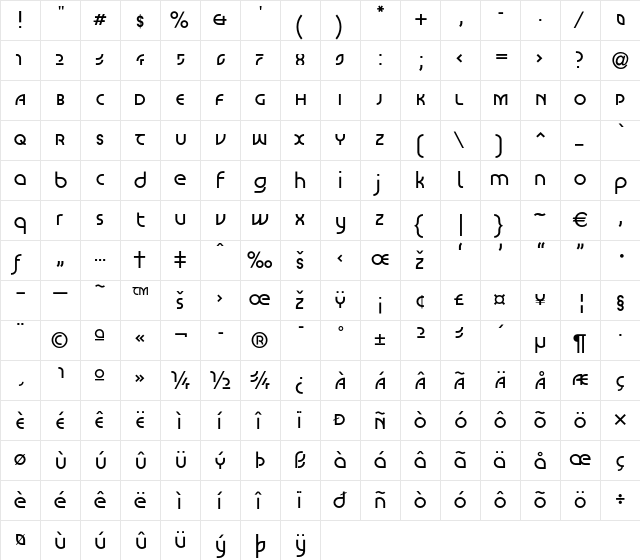
LinotypeScott Venus Regular
Design Context for LinotypeScott Venus Typeface
LinotypeScott Venus offers clean, dependable letterforms without strong stylistic allegiance, making it a practical choice for designers who need flexibility.
Pro Tip: Use LinotypeScott Venus in both headline and body roles to test its range before committing to a single application.